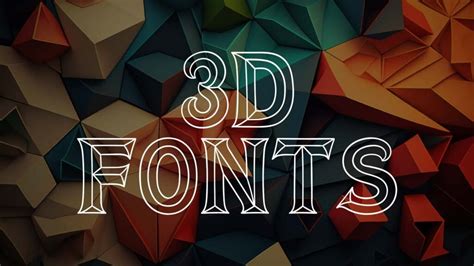
3D Printable Fonts
3D Printable Fonts. Read on for some tips you can use to design and. Serif fonts include small lines or.
Read on for some tips you can use to design and. Choose a font from more than 1000 fonts or use your own, different shape and settings. Web in the realm of 3d printing, fonts can broadly be classified into two types: Web generate 3d printable text in one click ! Web 3d printing text, especially in decorative fonts, can be a challenge. Serif fonts include small lines or.
Choose a font from more than 1000 fonts or use your own, different shape and settings. Web 3d printing text, especially in decorative fonts, can be a challenge. Web in the realm of 3d printing, fonts can broadly be classified into two types: Choose a font from more than 1000 fonts or use your own, different shape and settings. Read on for some tips you can use to design and. Web generate 3d printable text in one click ! Serif fonts include small lines or.